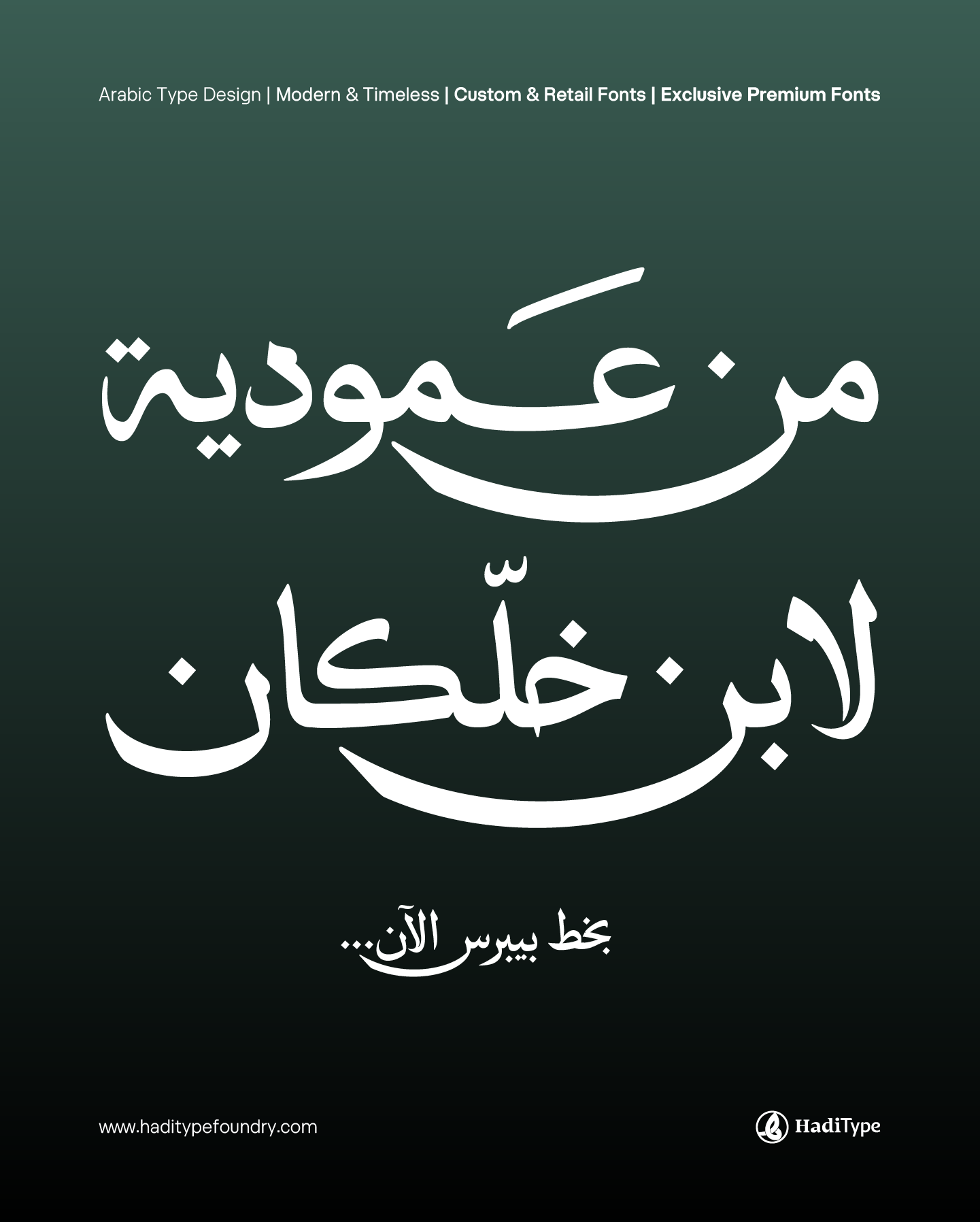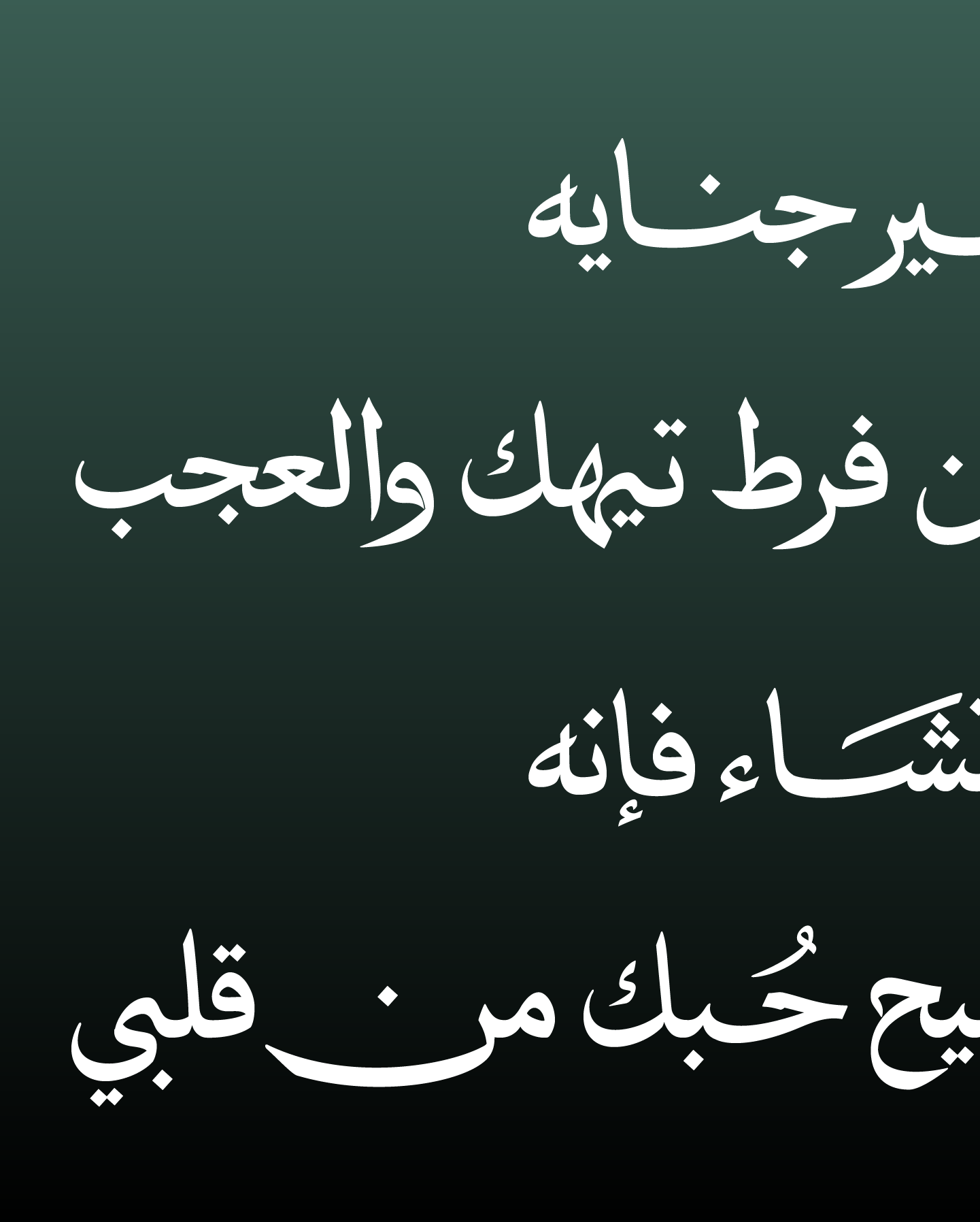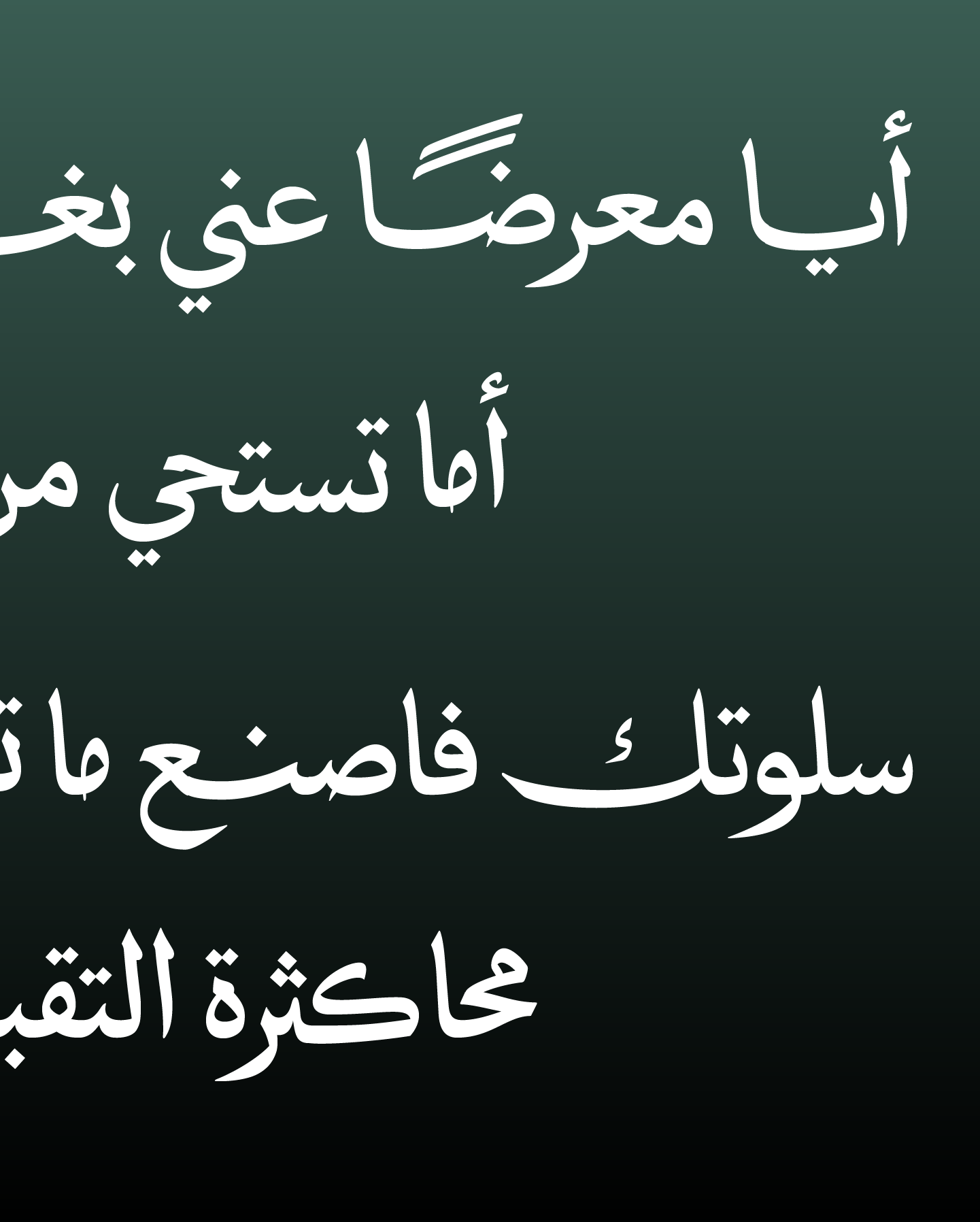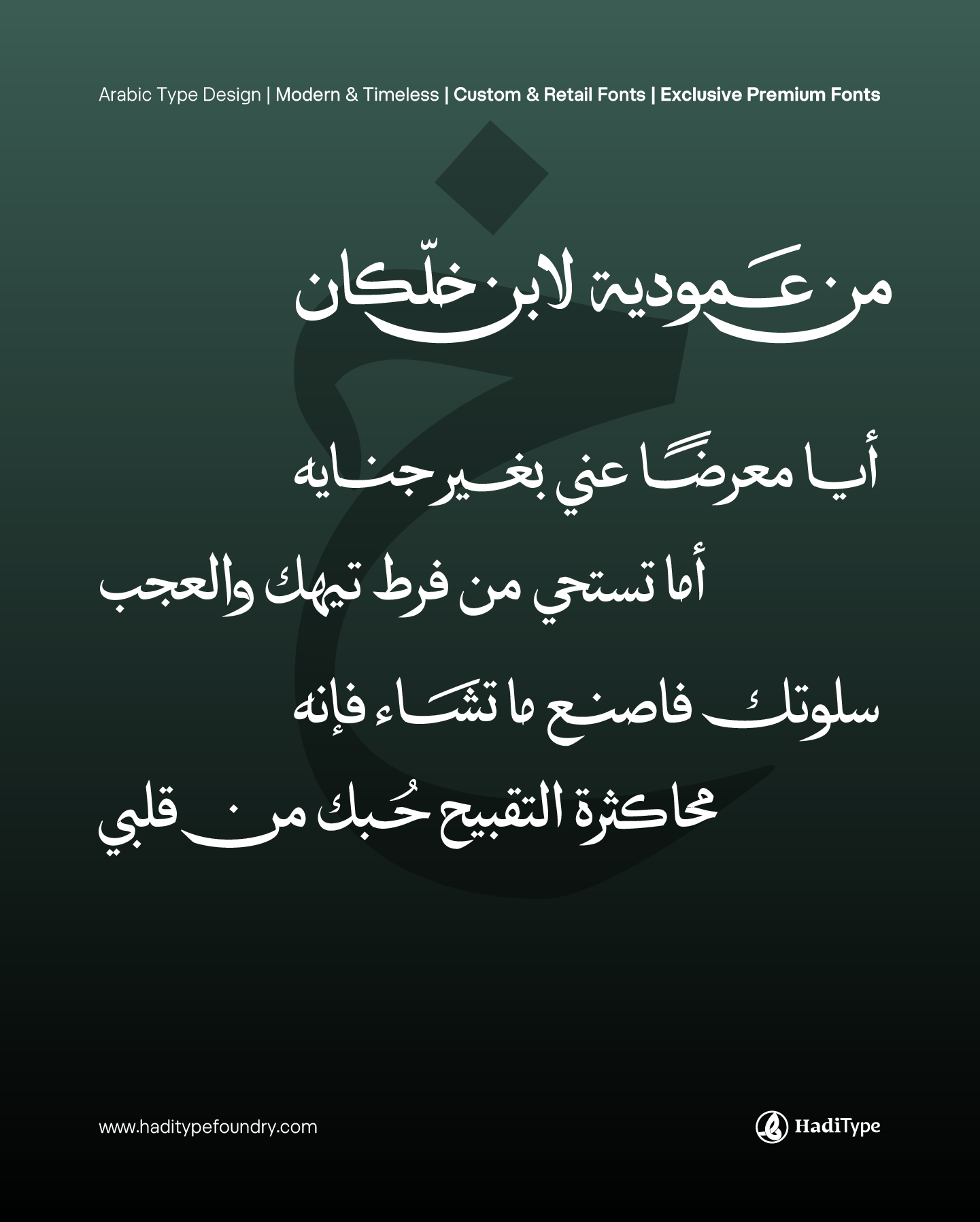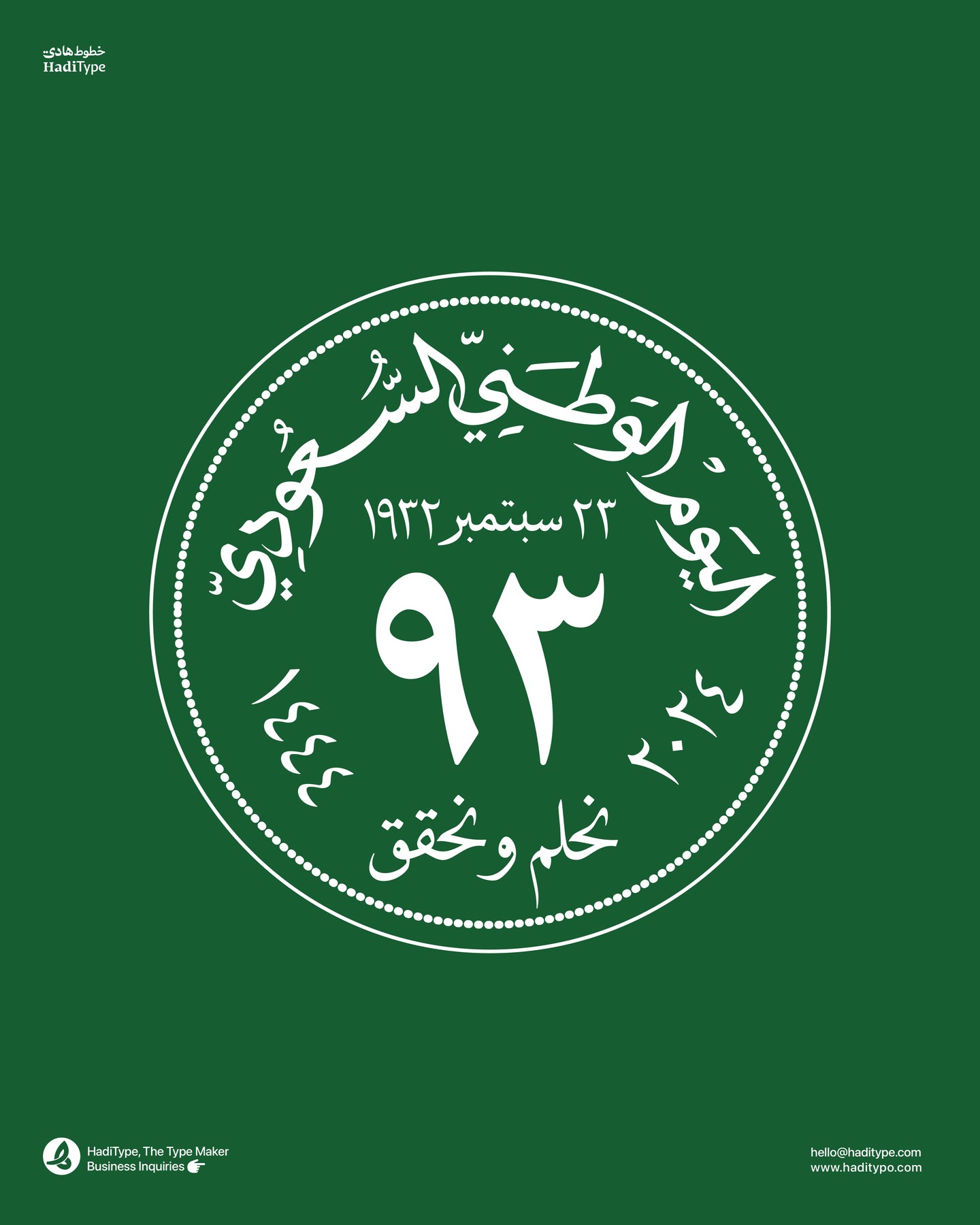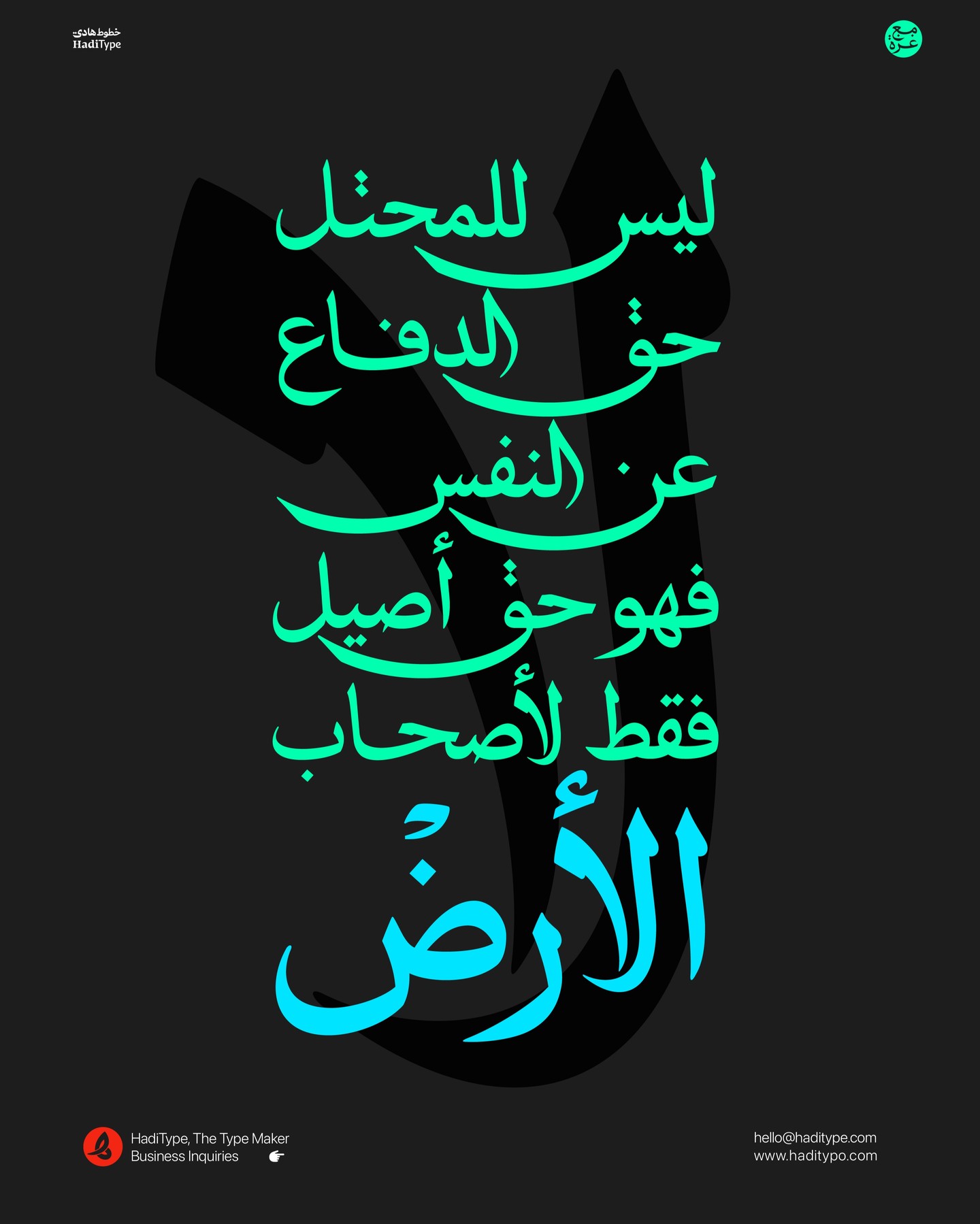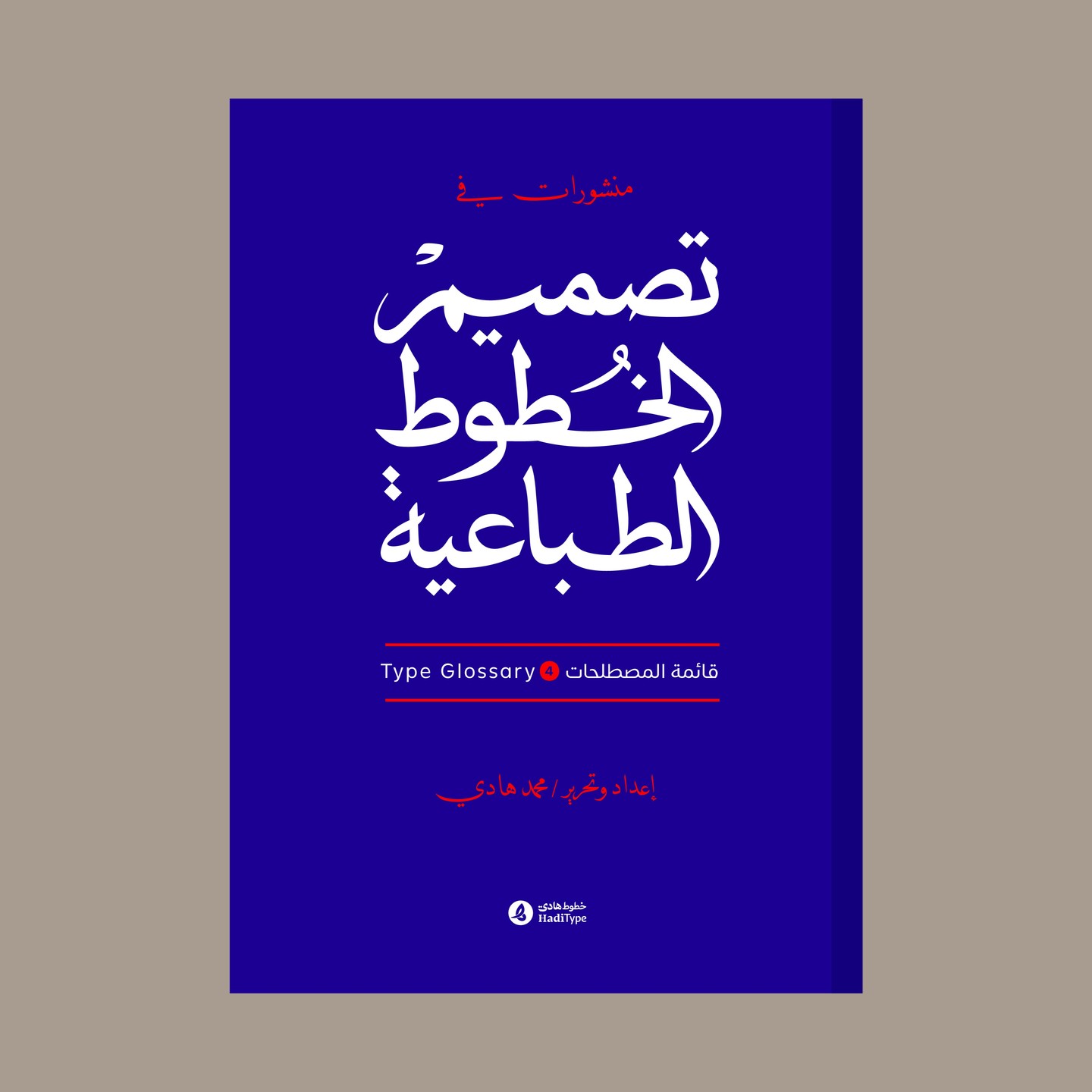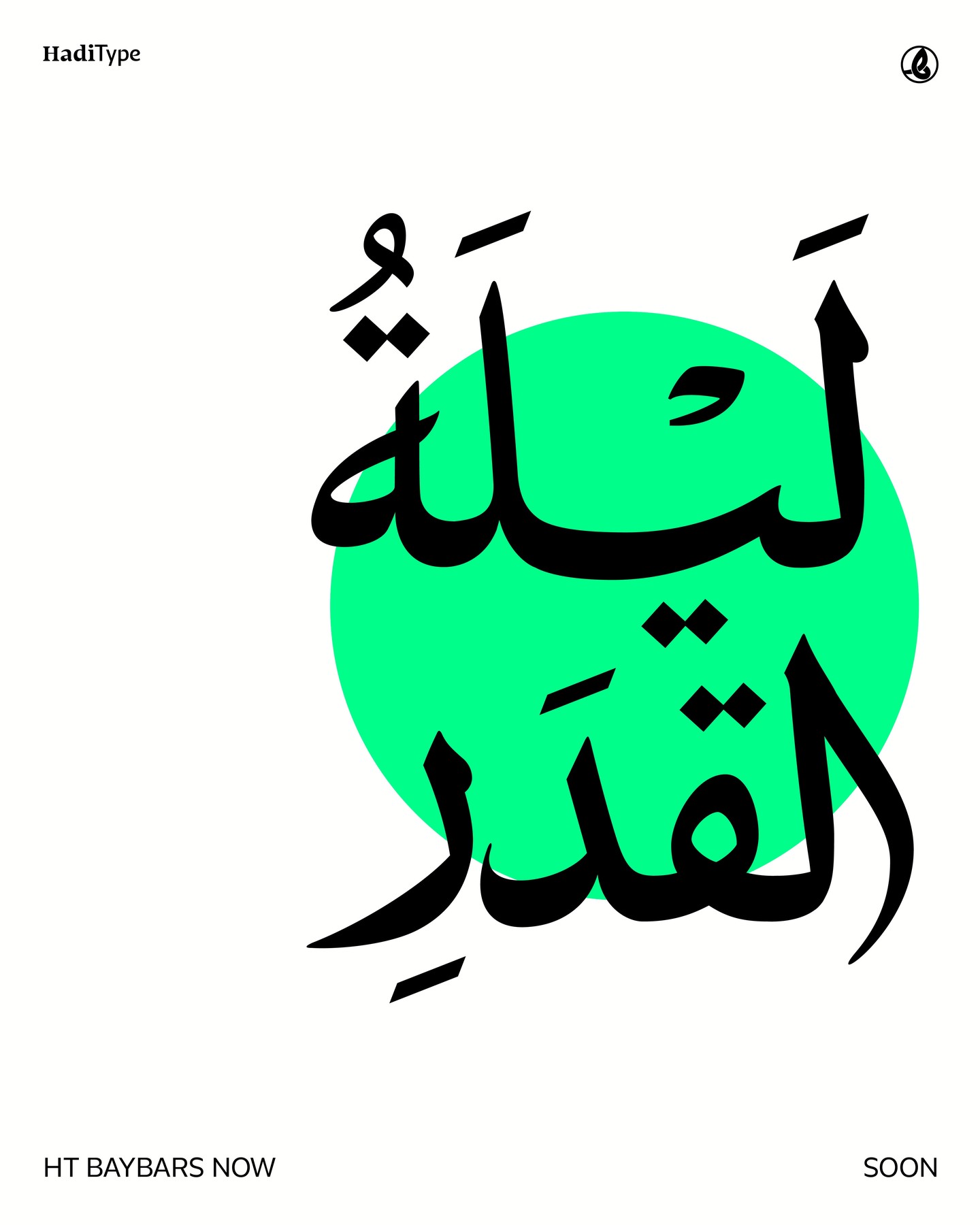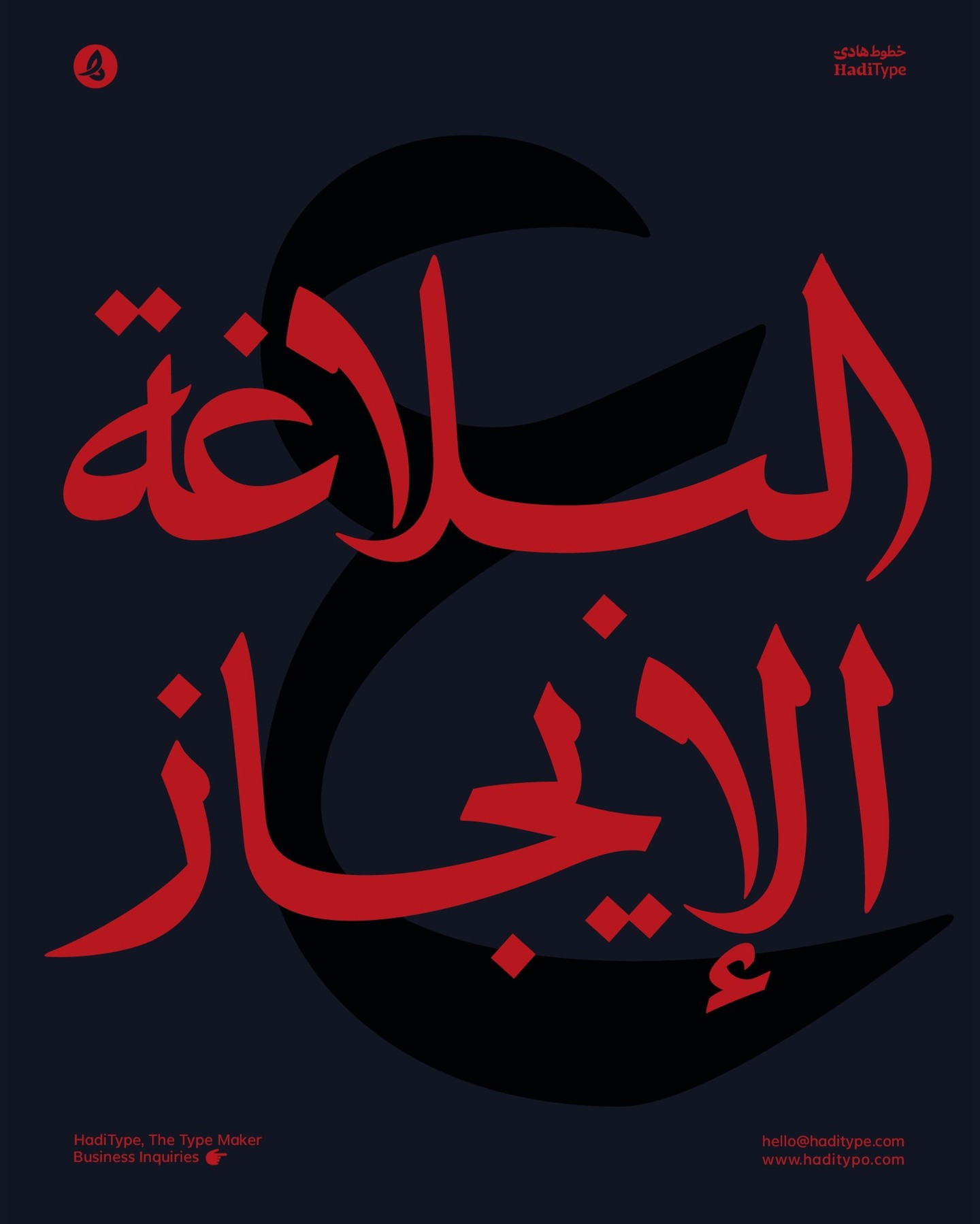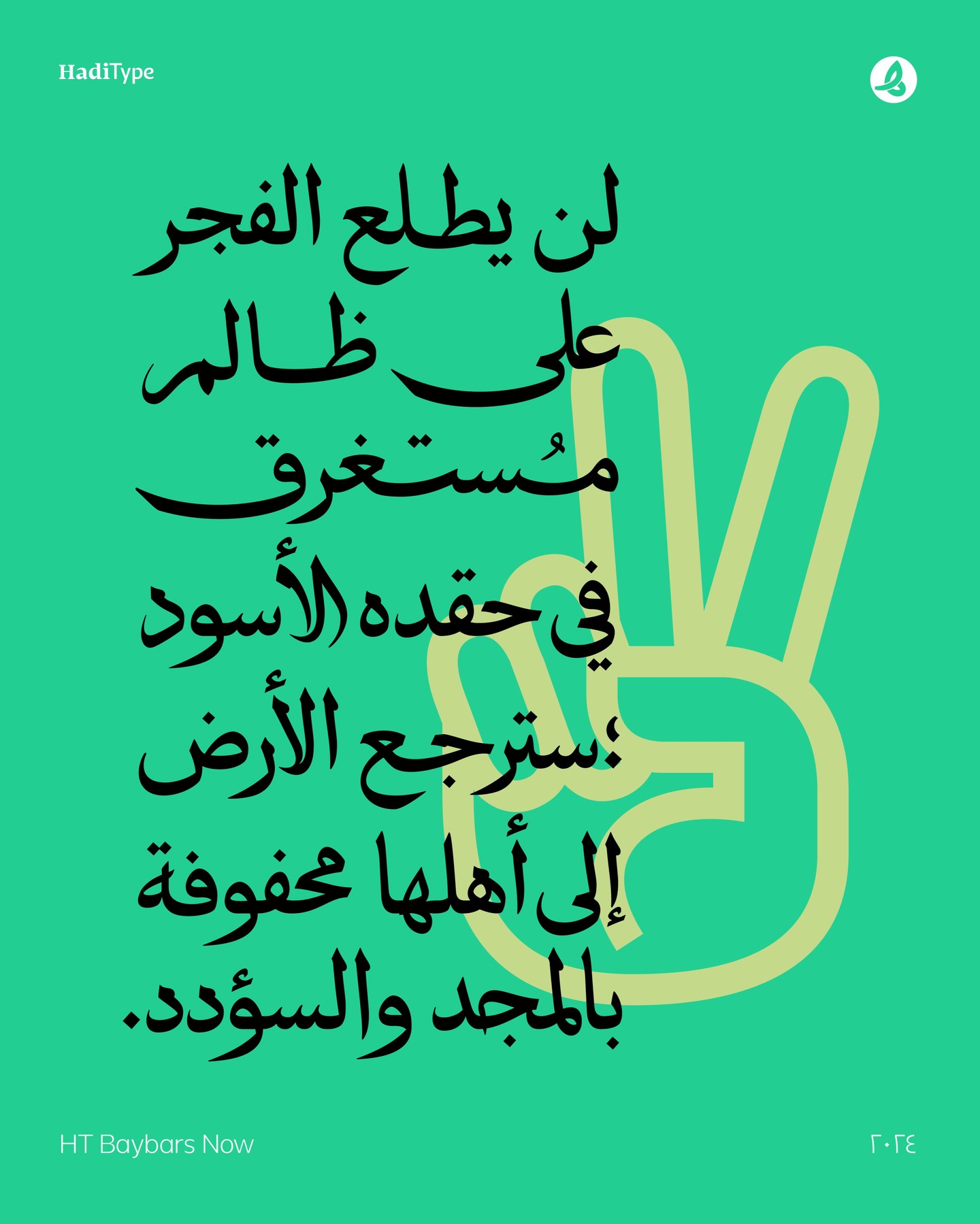
HT Baybars Now
Baybars Now is the latest update to our original Baybars typeface, first released in 2021.
This version introduces refined structure, improved proportions, and new calligraphic kashida features that bring it closer to the spirit of traditional calligraphy — while keeping it functional and robust for modern digital use.
We’ve also added a set of new stylistic sets, blending Mamluk elegance with Ottoman spirit, resulting in a hybrid style that feels both rooted and contemporary.
Baybars has long been a signature typeface in the HadiType collection.
Now, Baybars Now is released in a single weight, ideal for impactful headlines and short paragraphs — a confident voice for modern Arabic typography.